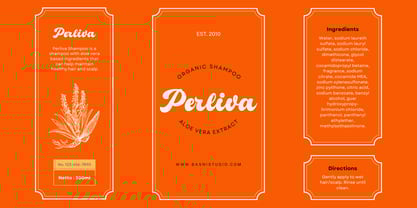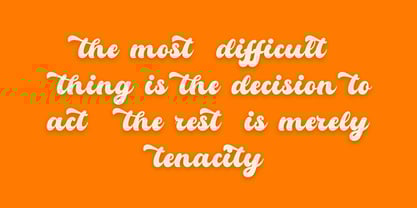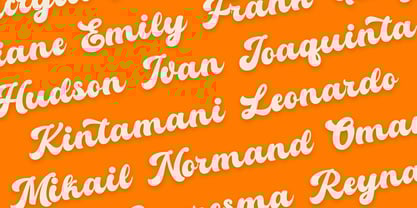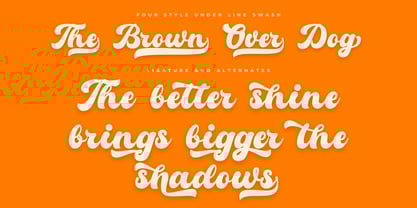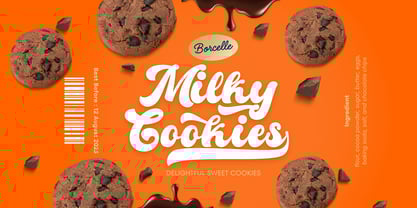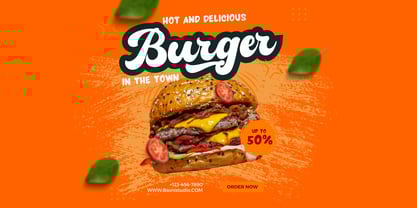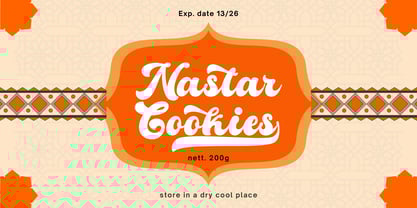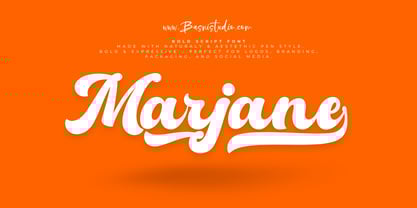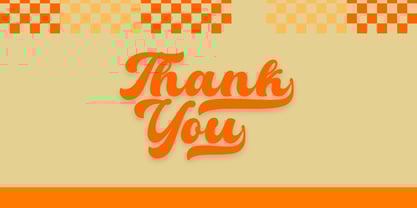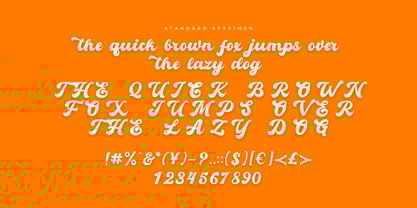
Marjane
The Marjane Font Family was designed by Bery Arisandi and published by Basnistudio. Marjane contains 1 styles. More about this family
Unleash Bold Strength with Marjane Logo Font 🎨✨
Transform your brand’s identity with the perfect blend of artistry and attitude. Introducing Marjane, a Bold Logo font designed for brands that demand attention.
✅ Authentic Bold Logo Font Style – Every stroke exudes personality and fluid motion.
✅ Bold & Expressive – Perfect for logos, branding, packaging, and social media.
✅ Alternates & Ligatures – Easy use to modify With Special character.
✅ Clean Brush Texture – A raw, organic feel that adds character and uniqueness.
Make your mark with a Bold Logo font that speaks with confidence. Create. Inspire. Stand out.
• Uppercase & lowercase letters
• Ligature & Swashes
• Numbers & punctuation